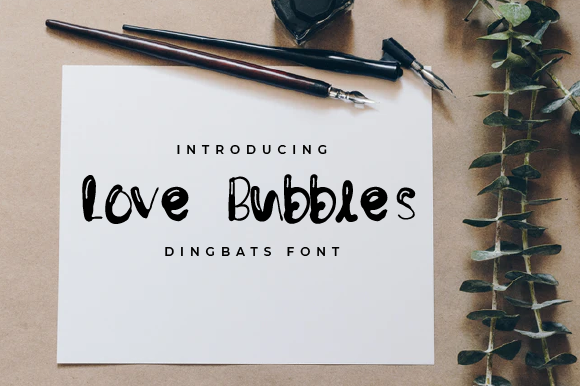
Introduction to Love Bubbles Font
Love Bubbles is a neat and unique display font.
Cute and simple, this font will match each of your designs .
Key Features of Love Bubbles Font